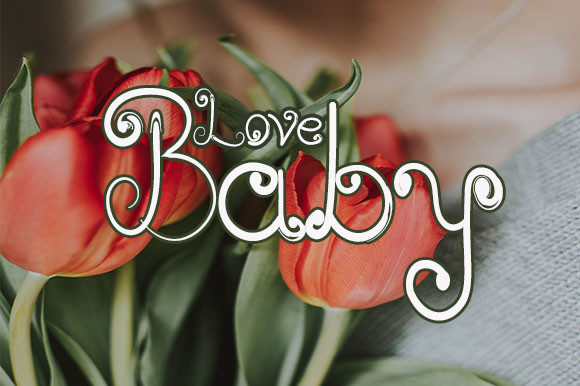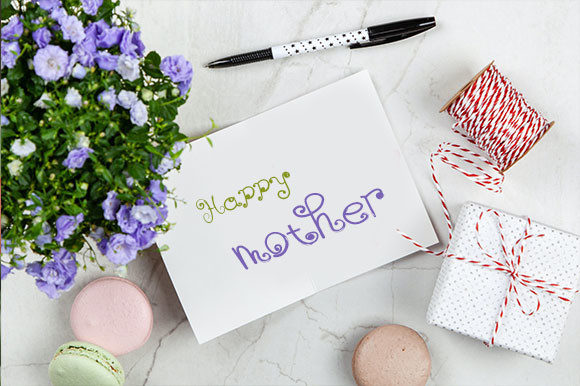
HomePersonal Use FreeLove Baby Personal Use Free Love Baby FacebookTwitterPinterestWhatsApp 1 of 2 About Love Baby Font Love Baby is a romantic, chic and delicate handwritten font. Whimsical and a bit quirky, this font will brighten up each of your designs. Add it confidently to your projects, and you will love the results. DOWNLOAD NOW People also explored Fallen Font Lindoffy Font Snarky Flamingo Font Funtastic Youth Duo Font Wormwood Gothic Splatter Kings Font Amillia Font Fabrica Font Arbeta Font 140 0 TagsLove Baby Font Previous articleMandaraNext articleBettari LEAVE A REPLY Cancel reply Comment: Please enter your comment! Name:* Please enter your name here Email:* You have entered an incorrect email address! Please enter your email address here Website: Save my name, email, and website in this browser for the next time I comment. Personal Use Free Nottingsam Personal Use Free Read more about this font Cuttie Personal Use Free Read more about this font Aelten Personal Use Free Read more about this font Round Geometric Personal Use Free Read more about this font BLOG Free vs Paid Fonts: Why Investing in Premium Fonts Is Worth It Free vs Paid Fonts: Why Premium Fonts Are Worth It in 2025 The debate of free vs paid fonts continues in the design world. While... Top 7 Google Fonts Alternatives for Faster and Privacy-Friendly Web Design (2025) To increase your work productivity, choose the most readable fonts. Free Fonts Risk: Why Free Fonts Can Be Dangerous for Designers